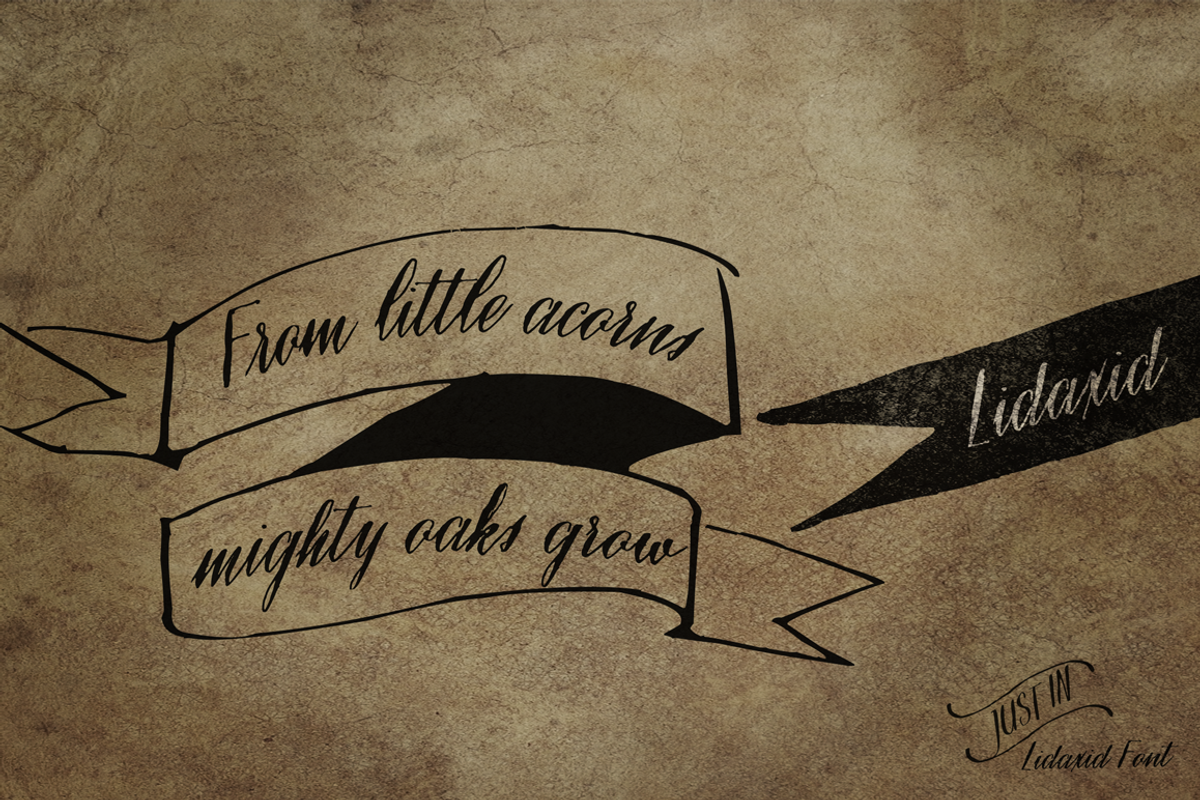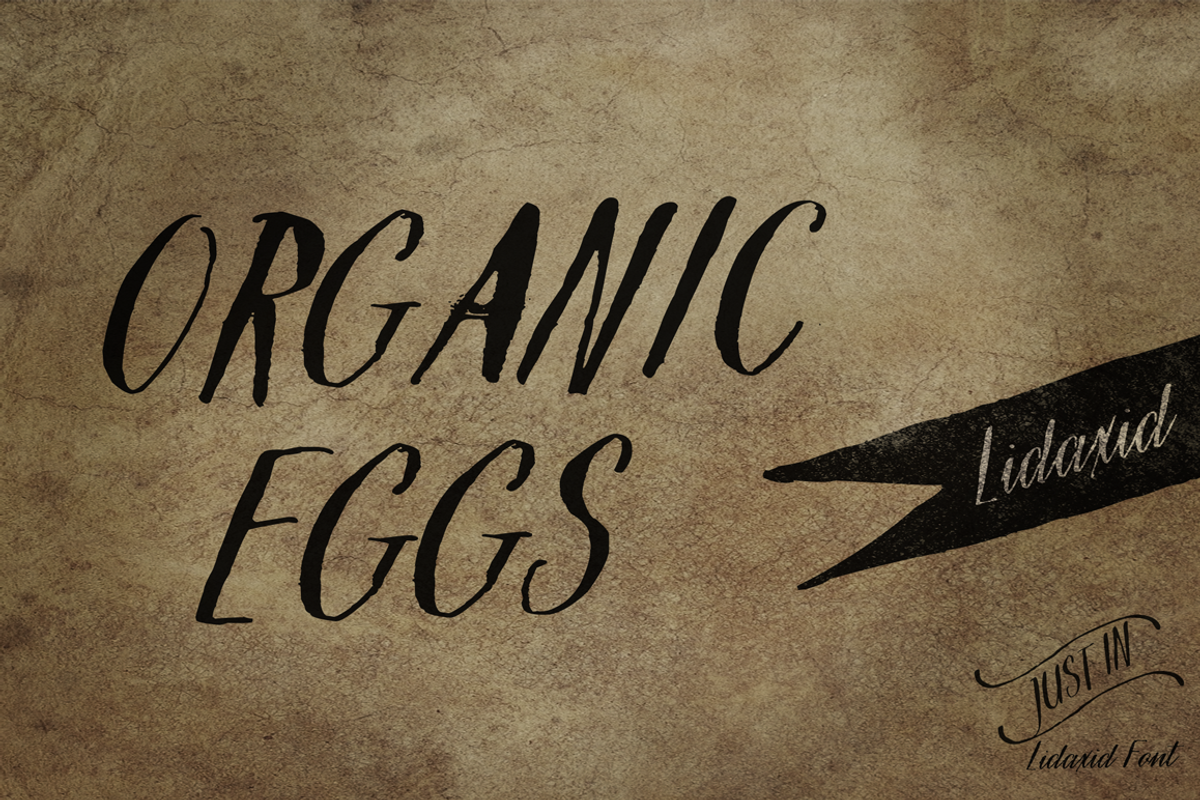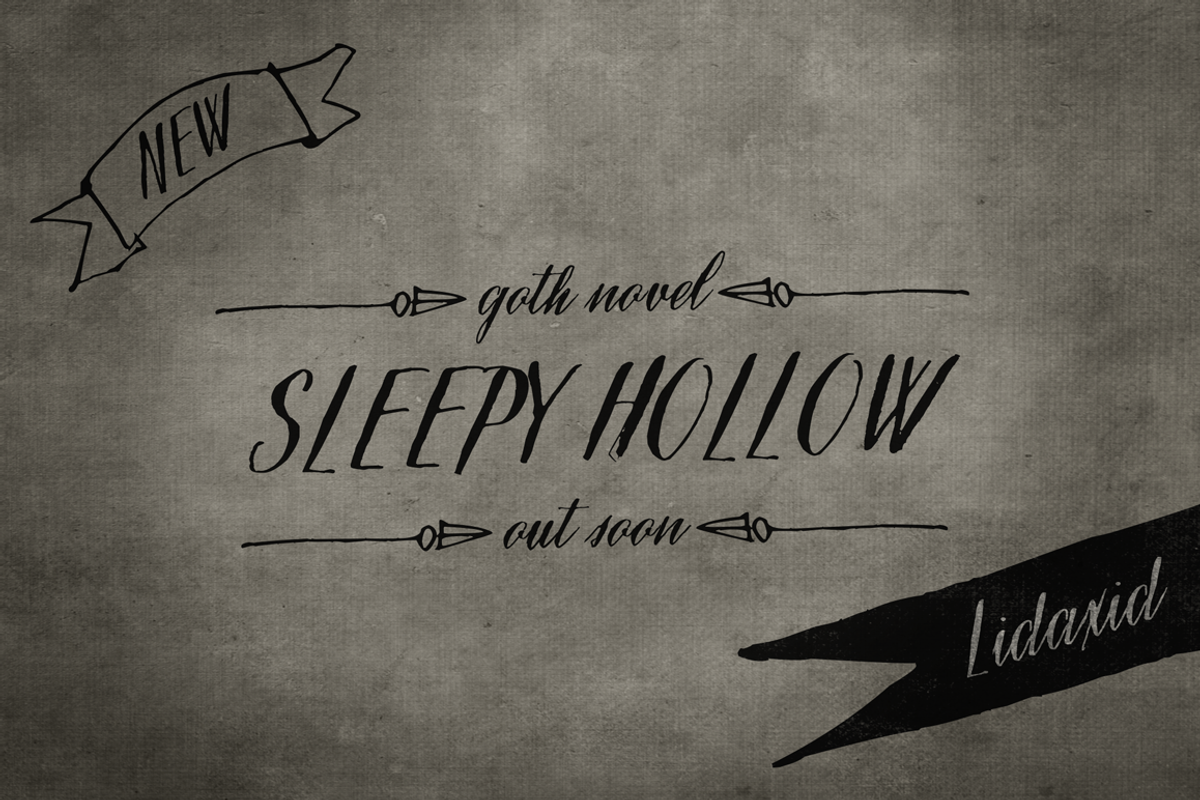
Lidaxid font, ttf package by Aga Silva is a font selected for branding, posters, packaging, typography.
Why Lidaxid font, ttf package is worth a look
Lidaxid font, ttf package by Aga Silva fits naturally into Branding, posters, packaging, typography.